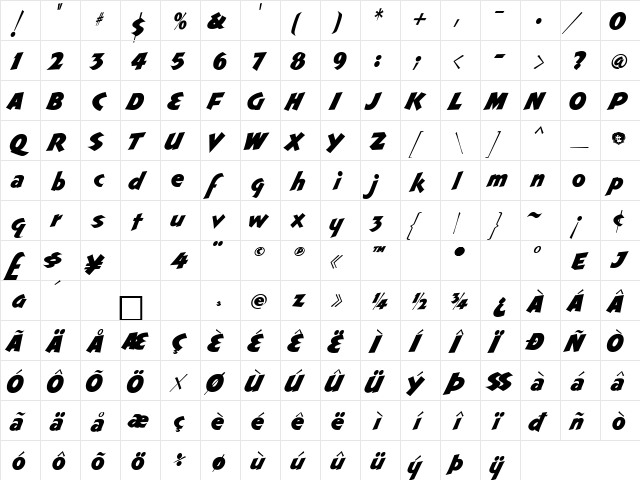
LHF Cincinnati Poster SMOOTH Regular
Design Context for LHF Cincinnati Poster SMOOTH Typeface
LHF Cincinnati Poster SMOOTH is a composed and adaptable typeface that performs quietly and consistently across a wide range of design contexts.